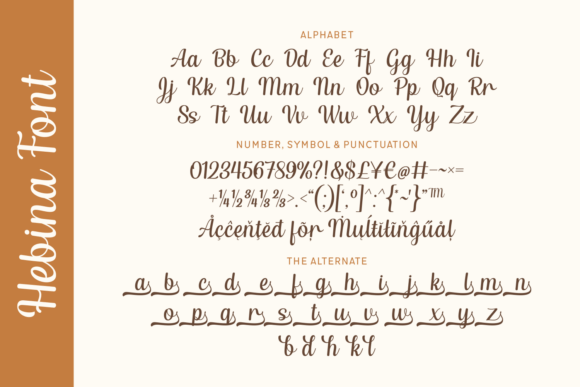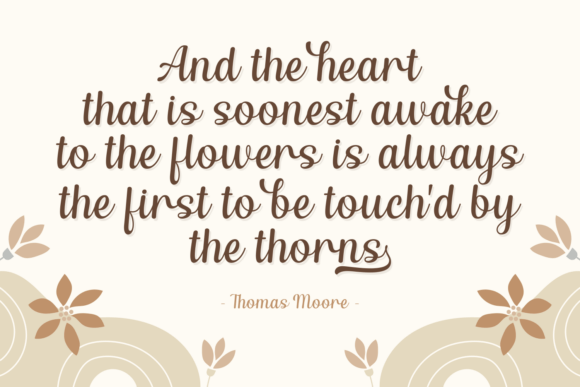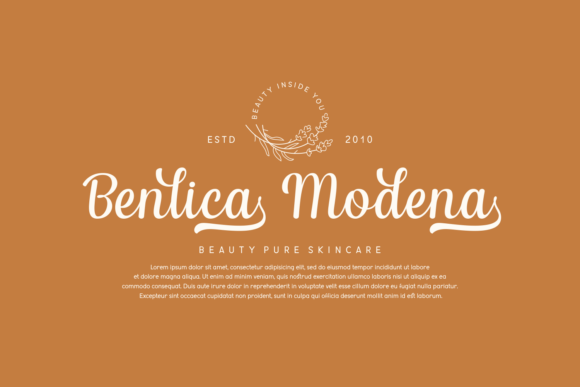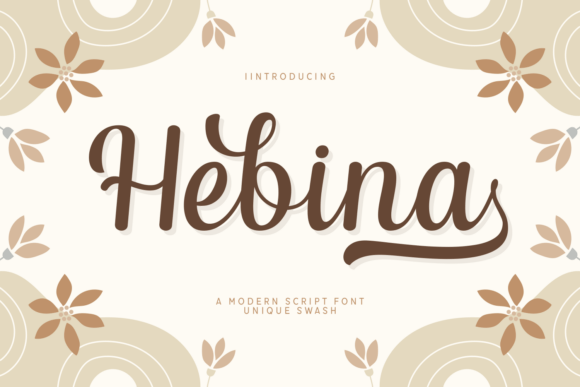
Introducing Hebina Font: Elevate Your Designs with Elegance and Charm
In the world of typography, fonts play a crucial role in conveying the tone and personality of a design. For designers and crafters looking to add a touch of sophistication and style to their projects, Hebina Font is an excellent choice. This modern script font boasts a soft and inviting design, making it perfect for a wide range of applications, from branding and invitations to social media and packaging.
The Unique Characteristics of Hebina Font
Hebina Font stands out with its bold yet smooth strokes, which provide a sense of luxury and refinement. The font’s distinctive swashes add a decorative element, creating a harmonious blend of elegance and charm. These unique characteristics make Hebina Font an ideal choice for designers who want to create visually stunning and memorable designs.
Perfect for Branding and Marketing Materials
When it comes to branding, the right font can make all the difference. Hebina Font’s modern and stylish design makes it an excellent choice for logos, business cards, and other marketing materials. Its bold strokes and swashes create a lasting impression, helping to establish a brand’s identity and personality.
Elevate Your Invitations and Stationery
Hebina Font is also perfect for creating beautiful invitations, stationery, and greeting cards. Its elegant design and smooth strokes make it ideal for formal and informal events, such as weddings, birthdays, and holidays. With Hebina Font, you can add a touch of sophistication and style to your paper crafts and invitations.
Social Media and Packaging Made Stylish
In today’s digital age, social media and packaging play a crucial role in a brand’s online presence. Hebina Font can help you stand out on social media platforms and product packaging with its fresh and modern vibe. Use it to create eye-catching graphics, posters, and flyers that grab attention and leave a lasting impression.
Creative Projects that Demand a Stylish Touch
Hebina Font is not just limited to branding and marketing materials. It’s also perfect for creative projects that demand a stylish touch, such as art journals, scrapbooking, and mixed media. Its unique design and swashes provide endless inspiration for crafters and artists looking to add a touch of elegance to their work.
Why Choose Hebina Font?
So, why choose Hebina Font for your design projects? Here are just a few reasons:
- Unique Design: Hebina Font boasts a distinctive design that sets it apart from other script fonts.
- Elegance and Charm: Its bold yet smooth strokes and swashes create a harmonious blend of elegance and charm.
- Versatility: Hebina Font is perfect for a wide range of applications, from branding and marketing materials to social media and packaging.
- Fresh and Modern Vibe: Hebina Font adds a fresh and modern touch to any design, making it perfect for designers and crafters looking to stay ahead of the trend.
In conclusion, Hebina Font is an excellent choice for designers and crafters looking to add a touch of elegance and style to their projects. Its unique design, bold yet smooth strokes, and distinctive swashes make it perfect for branding, invitations, social media, packaging, and creative projects that demand a stylish touch. With Hebina Font, you can elevate your designs and create visually stunning and memorable projects that leave a lasting impression.
Get Ready to Add a Fresh, Modern Vibe to Your Designs!